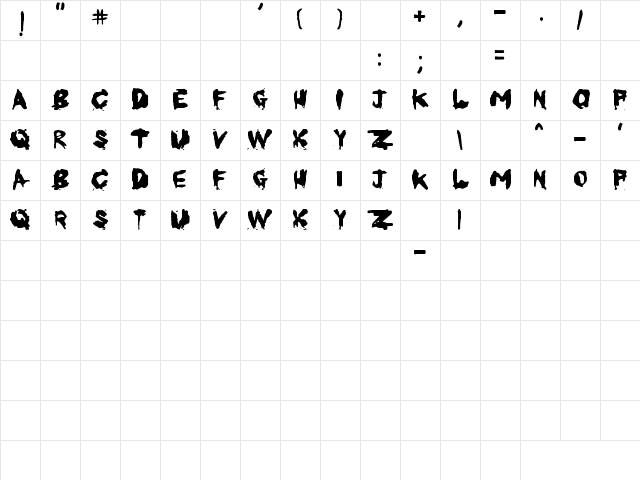
Complete KoRnNet.too.it TALITM Regular glyph index. Displaying only characters natively supported by KoRnNet.too.it TALITM Regular font.
KoRnNet.too.it TALITM is a composed and adaptable typeface that performs quietly and consistently across a wide range of design contexts.